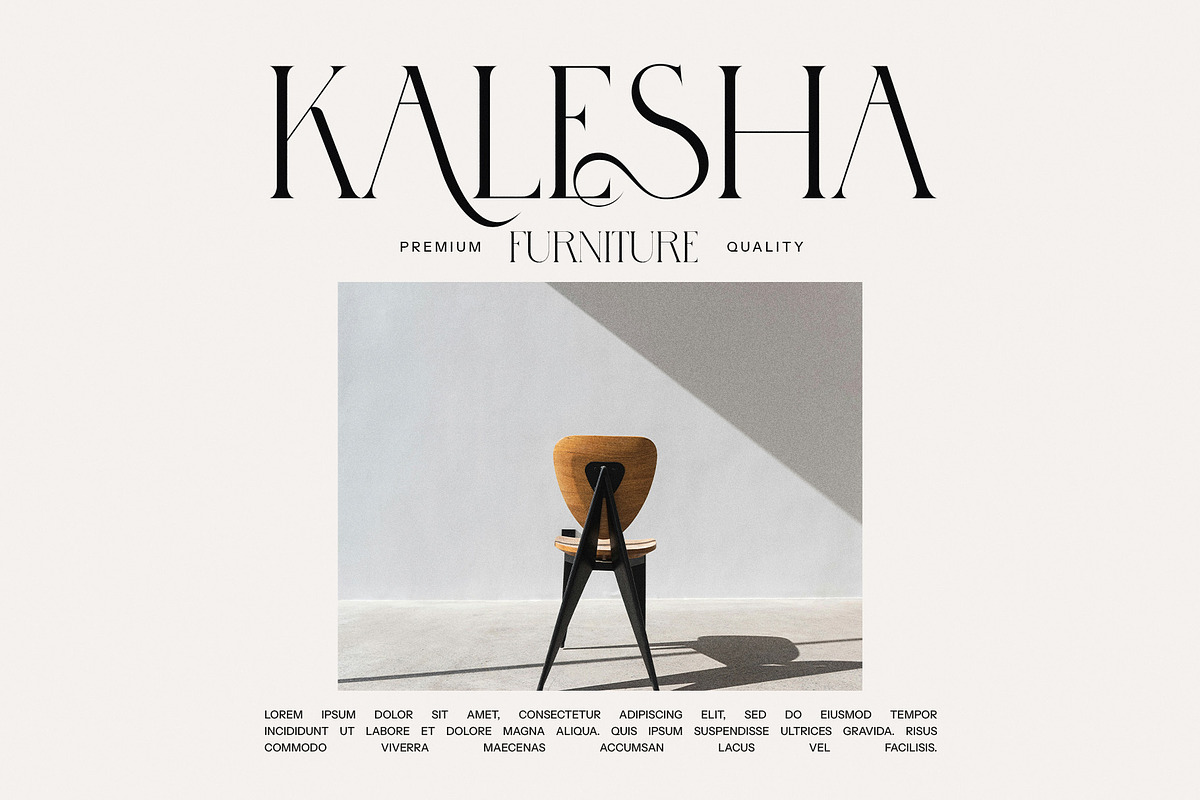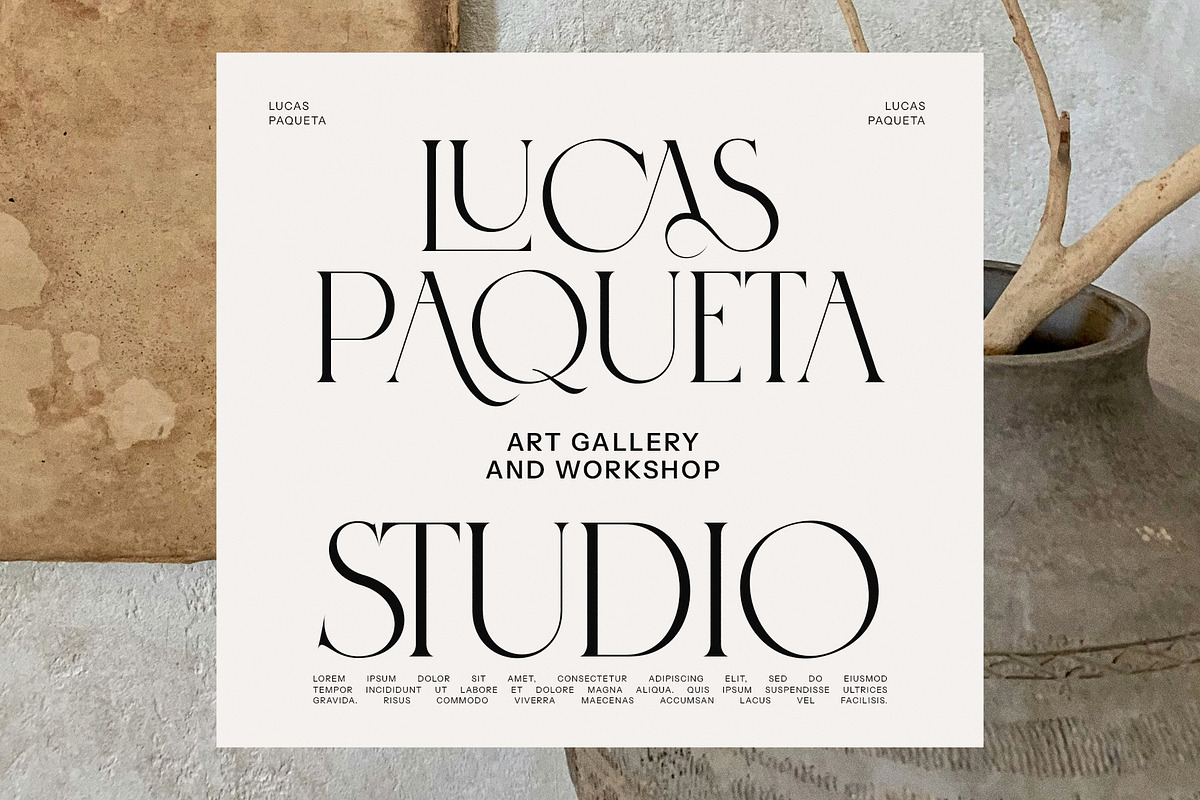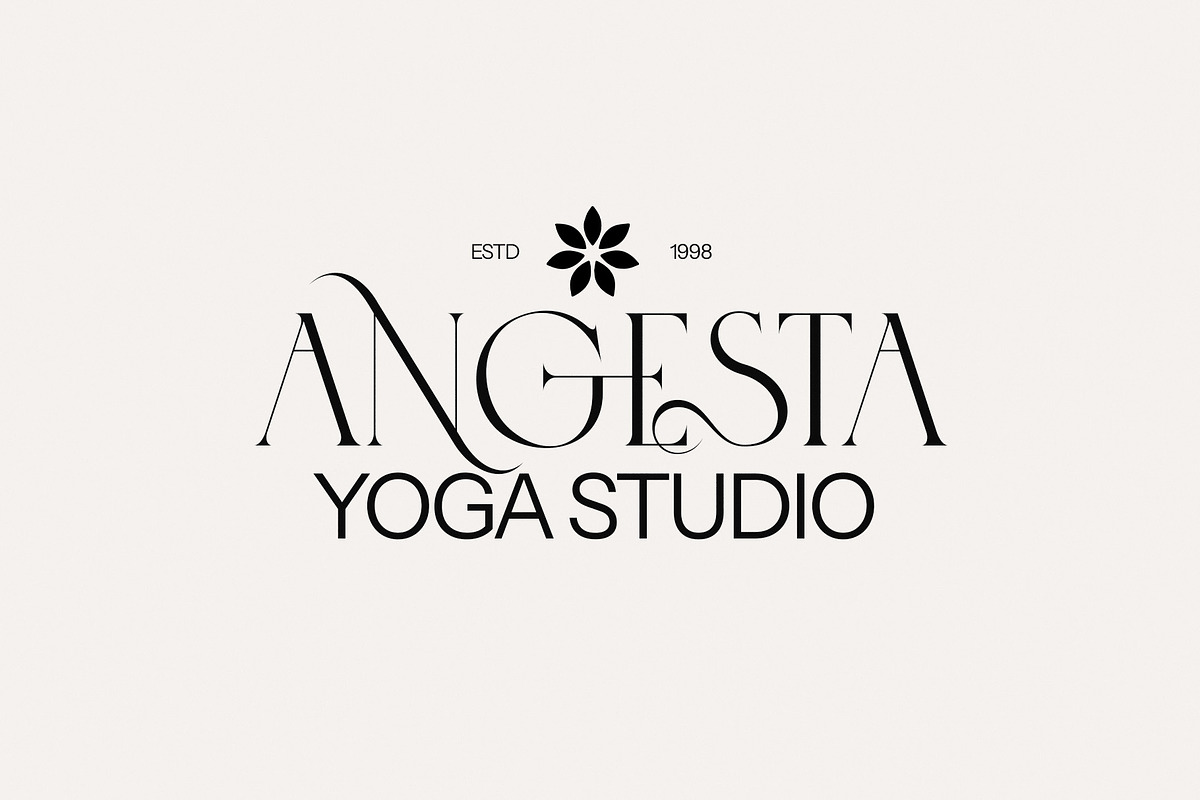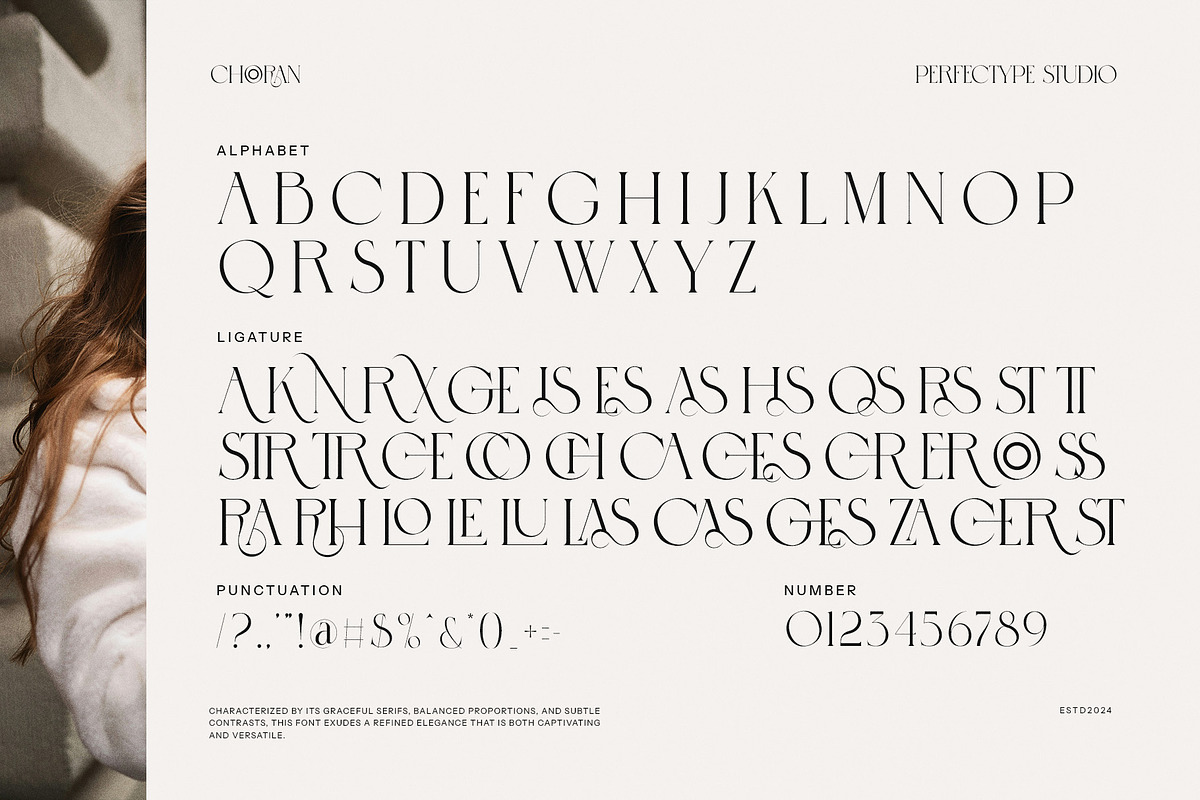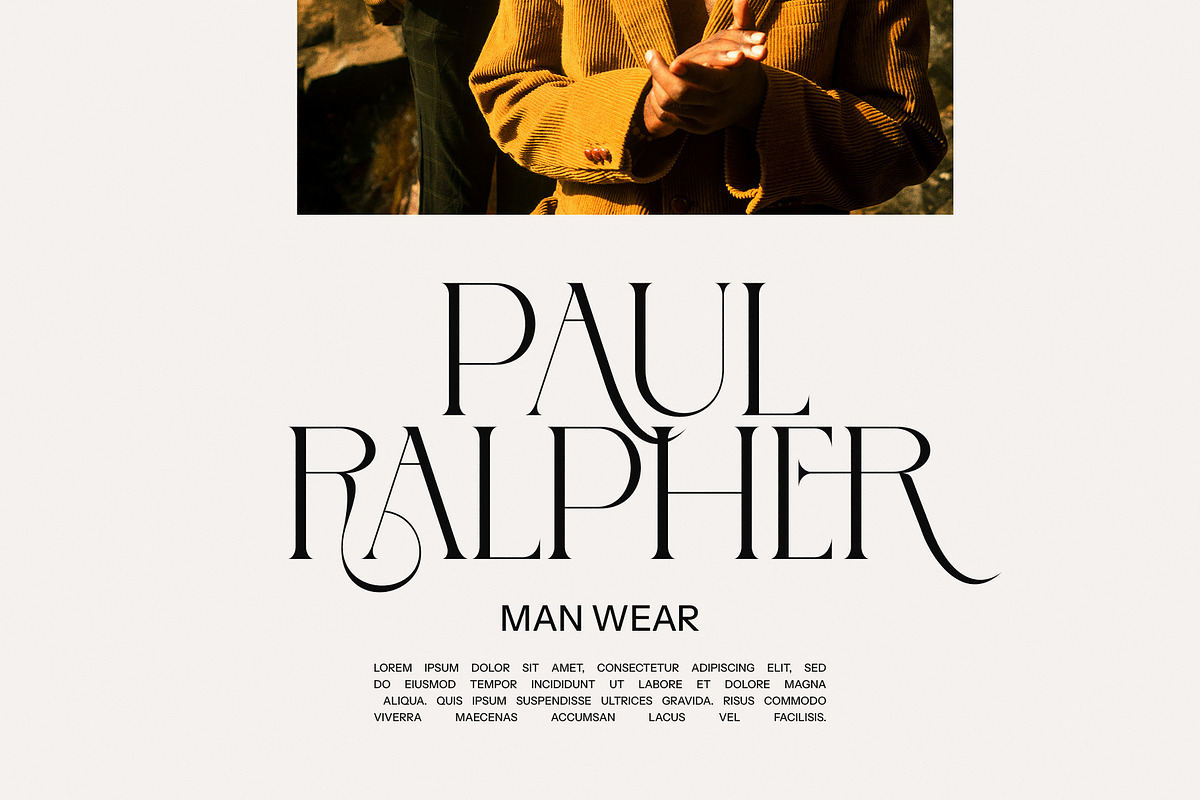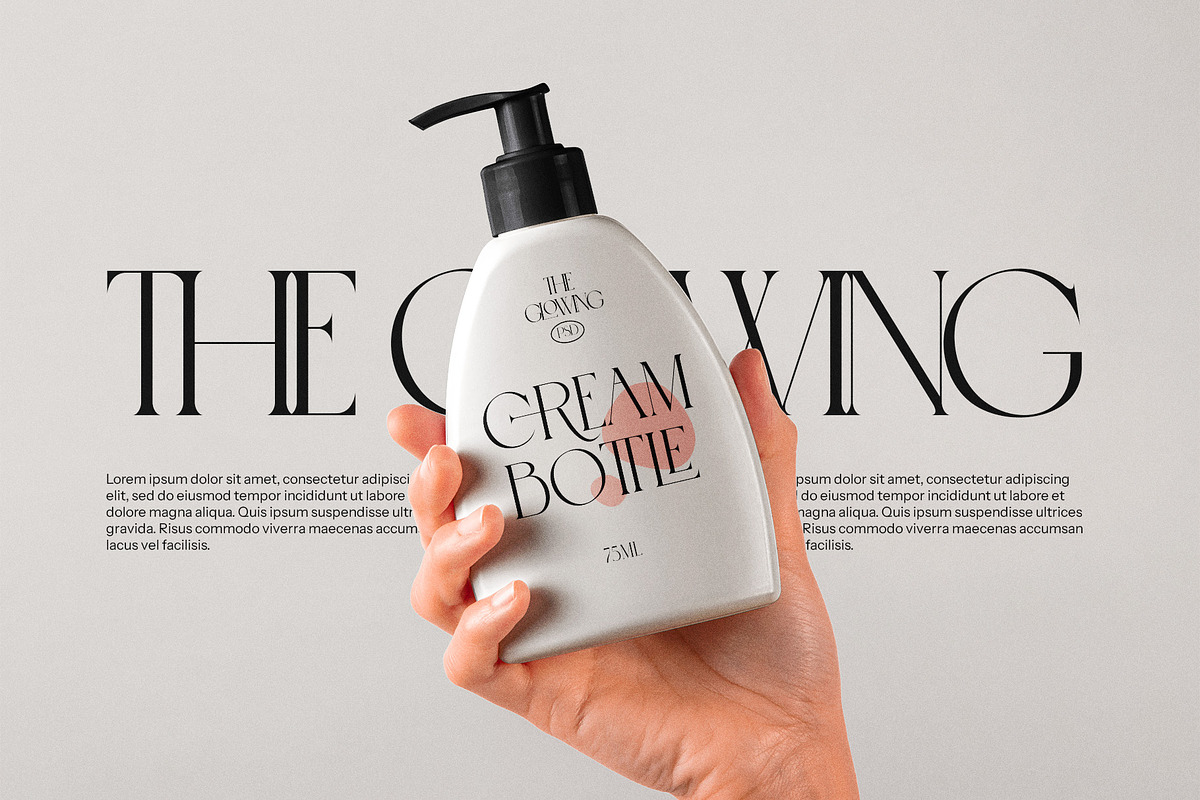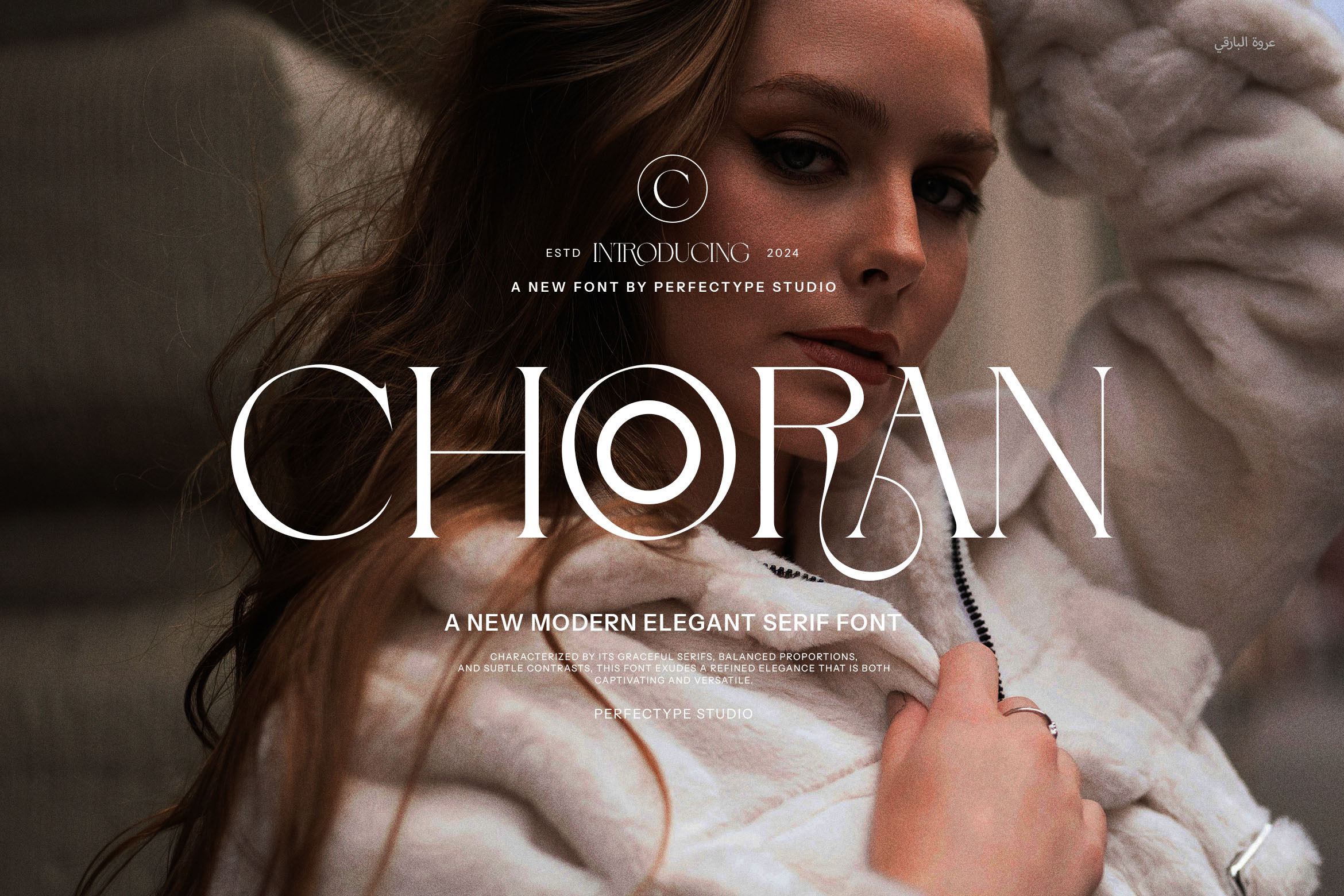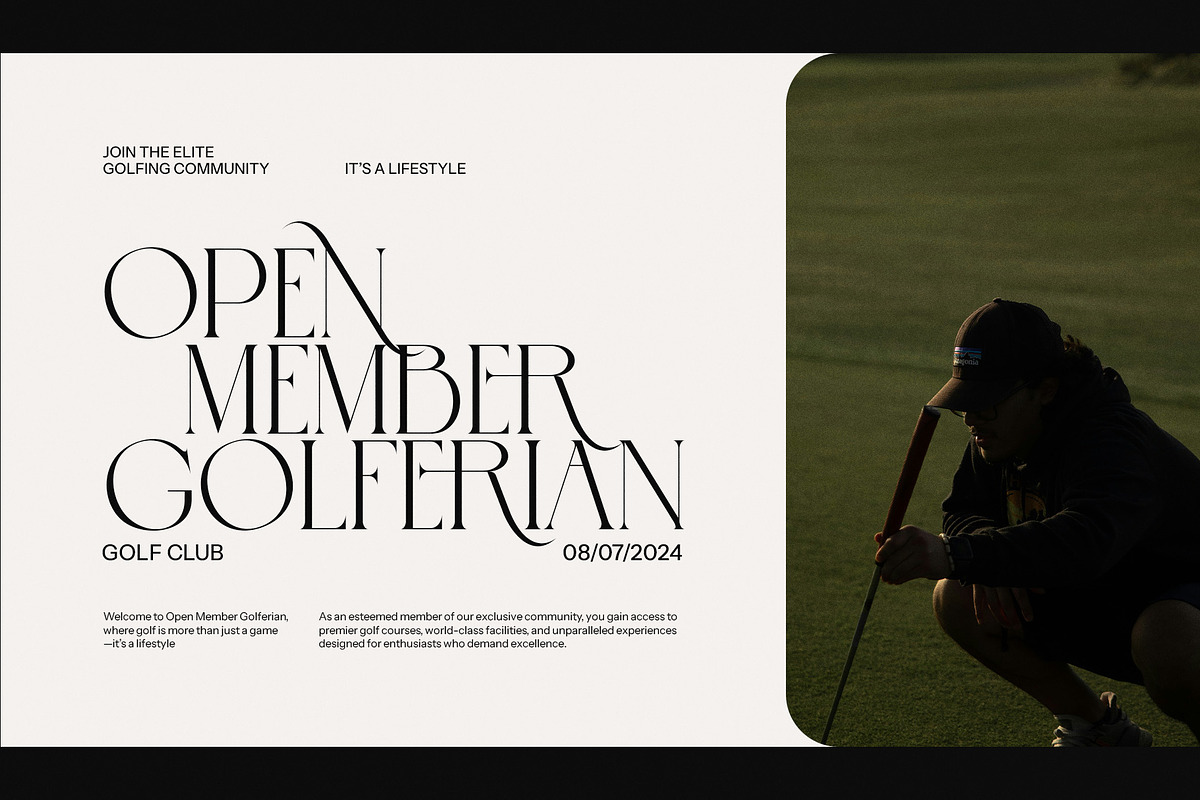
Chooran Stylish Elegant Serif Font
Introducing the Chooran Stylish Elegant Serif Font a striking typeface that embodies the essence of sophistication and timeless elegance. With its vintage-inspired design, Chooran transforms any text into a work of art, making it an essential choice for discerning creatives. Each letter is meticulously crafted, showcasing a beautiful interplay of form and style that captures the eye and evokes a sense of nostalgia.
What sets Chooran apart are its exquisite stylish alternates and ligature features. These unique elements allow for endless creative possibilities, providing designers with the flexibility to craft distinctive typographic compositions. The ligatures seamlessly connect letters, adding a fluidity that enhances readability while simultaneously infusing your projects with character and charm. The stylish alternates invite playful experimentation, ensuring that each piece feels uniquely tailored to its purpose.
Chooran is particularly well-suited for a variety of applications, including logo design, branding initiatives, magazine layouts, product packaging, and advertising campaigns. Whether you're aiming for a chic, high-end aesthetic or a warm, inviting feel, this font adapts effortlessly to your vision. Its elegant serifs evoke a sense of heritage, while its stylish flair keeps it fresh and contemporary, making it perfect for both traditional and modern design contexts.
In addition to its visual appeal, Chooran is designed with functionality in mind. The font’s legibility at different sizes ensures that your message remains clear and impactful, whether featured prominently on a billboard or within the pages of a magazine. Its comprehensive character set accommodates multilingual projects, broadening its utility and making it a versatile addition to any designer's arsenal.
Embrace the artistry of Chooran Stylish Elegant Serif Font and let its graceful lines and vintage charm elevate your creative projects. With this font, every word becomes a statement, every brand tells a story, and every design resonates with elegance and style. Unleash your creativity and watch as Chooran transforms your concepts into captivating visual narratives that leave a lasting impression.